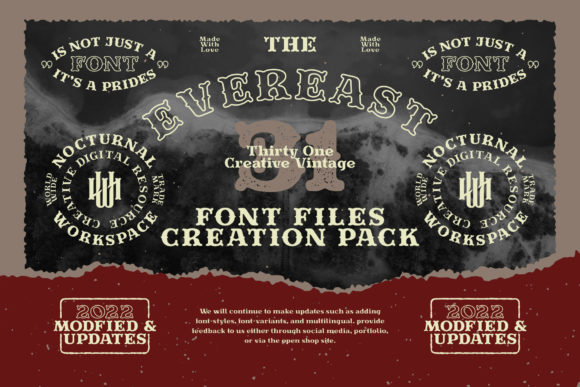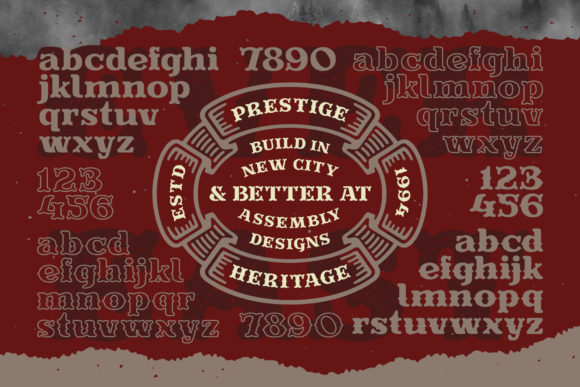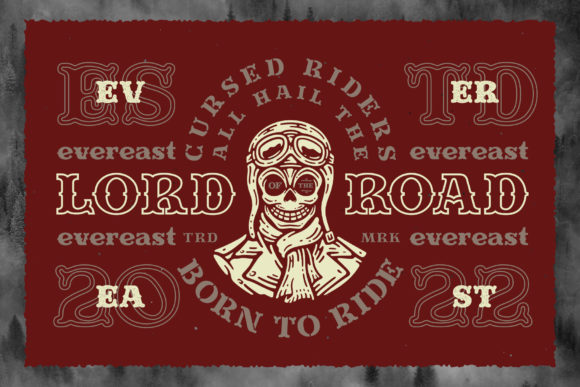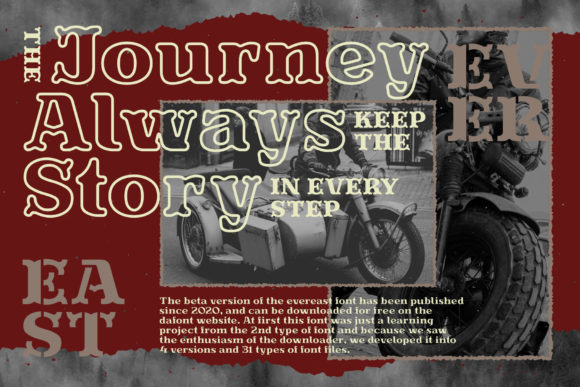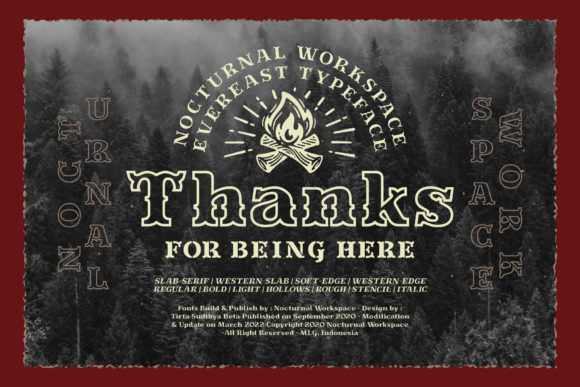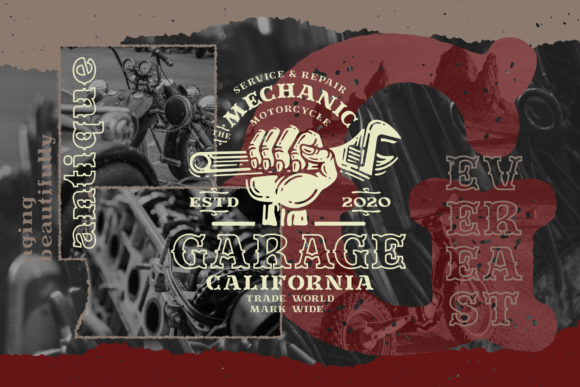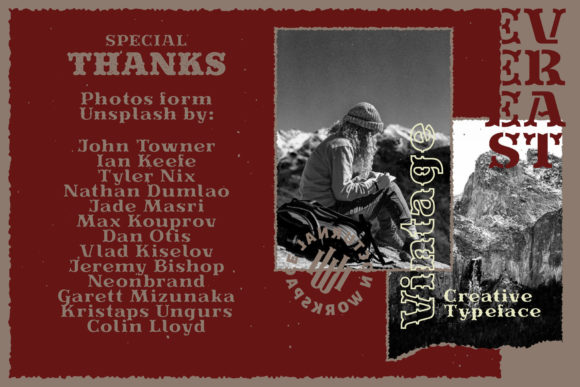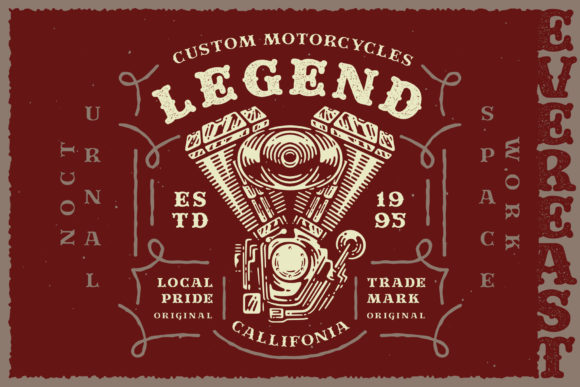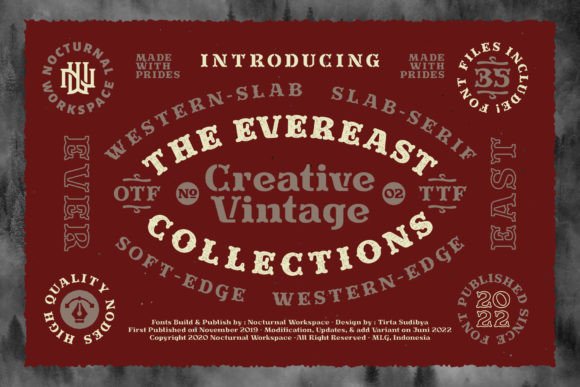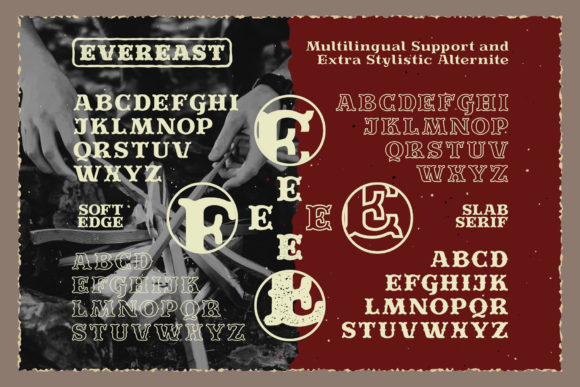
Evereast Collection
Evereast Collection: A Western-Looking Slab Serif Font
Evereast Collection is a western-looking, assertive, and retro-styled slab serif font. It is perfect for any branding project such as logos, t-shirt printing, creative products, and more. This font will look extraordinary in a variety of contexts.
Key Features of Evereast Collection
• Western Style: Offers a classic and assertive look suitable for various applications.
• Slab Serif Structure: Features thick, rectangular serifs typical of slab serif fonts.
• Versatile Application: Ideal for projects ranging from logos to apparel design.
• Retro Vibe: Provides a nostalgic touch that enhances its visual appeal.
Ideal Uses for Evereast Collection
Evereast Collection’s unique characteristics make it particularly well-suited for:
When incorporating Evereast Collection into your designs, consider these tips:
• Use for headlines or short blocks of text to showcase its western style.
• Utilize its retro vibe across various creative projects to enhance visual appeal.
Evereast Collection is an excellent choice for designers looking to add a western-looking slab serif font to their typographic toolkit. Its ability to bring an assertive and retro touch to various design projects makes it stand out in the world of typography. Whether you’re working on branding projects, creating layouts for magazines, or developing content that requires a touch of nostalgia, Evereast Collection offers the perfect blend of style and functionality.
Furthermore, Evereast Collection’s unique design allows it to shine in various contexts. From vintage-inspired designs with a modern twist to more contemporary layouts that need a touch of uniqueness, this font can elevate your projects. Its striking yet functional style works particularly well in designs that require a thoughtful and engaging mood.
In conclusion, Evereast Collection is a font that truly captures the essence of creativity and impact in typography. Its ability to work well in both minimalist projects and more elaborate layouts showcases its flexibility. For those looking to add a touch of unique charm to their work, Evereast Collection can even enhance themed creations with its distinctive style. It’s the perfect choice for designers seeking to make a strong, stylish impact across a wide range of creative projects.